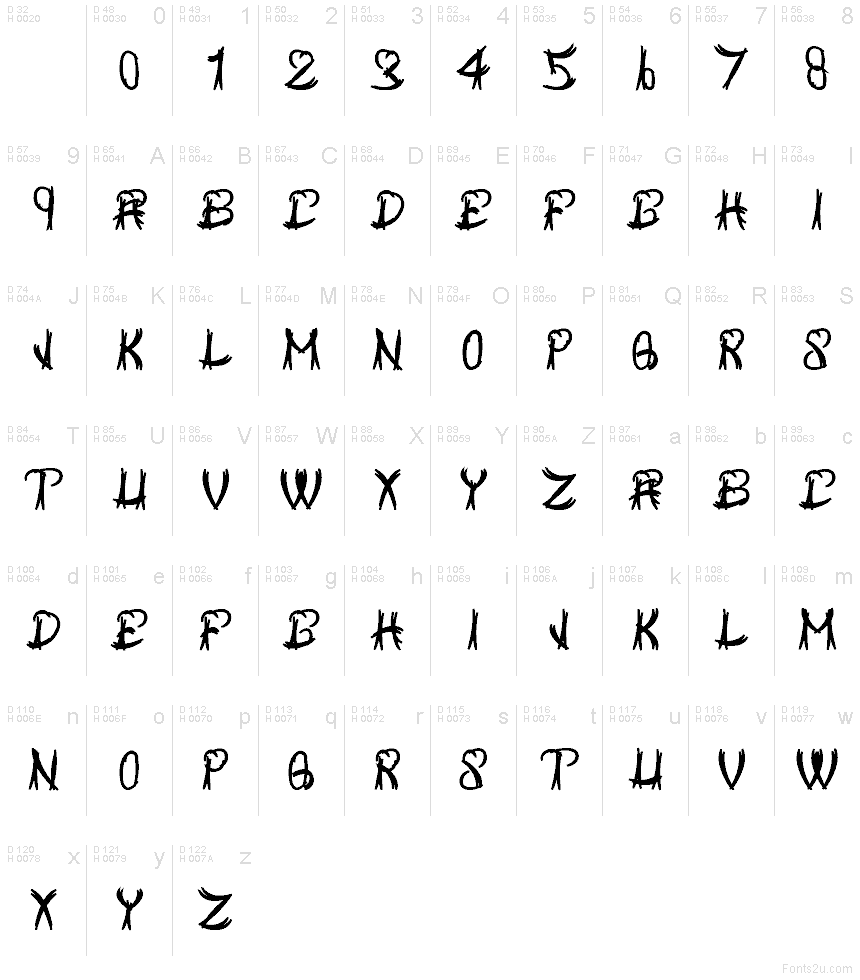
Custom
Custom font by Woramet Tompudsa is a free rough trash-style display font. Built from wiry strokes and splintered terminals, it looks hand-scrawled with a fat, inky marker that snagged on the paper. Spiky outcroppings, lanky proportions, and a jittery rhythm give each word a feral energy without losing legibility at headline sizes.
Using Custom, you can push attitude on horror posters, punk flyers, zines, album covers, Halloween promos, indie game titles, and edgy packaging. Its scratchy texture grabs attention fast, so keep copy short and scale it large. For balance, pair this free font with a neutral sans serif and generous tracking to let the thorns breathe.